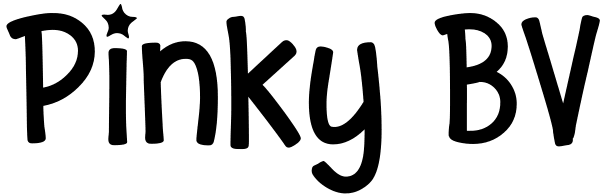
Pinky BV
A fun display / headline font with a hand lettered look. The i and j are dotted with stars to add playfullness. This font is a full extended character set!